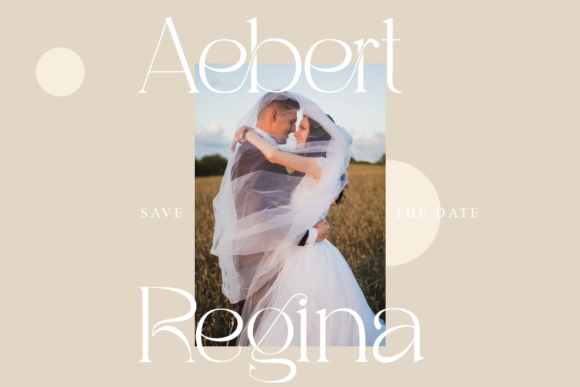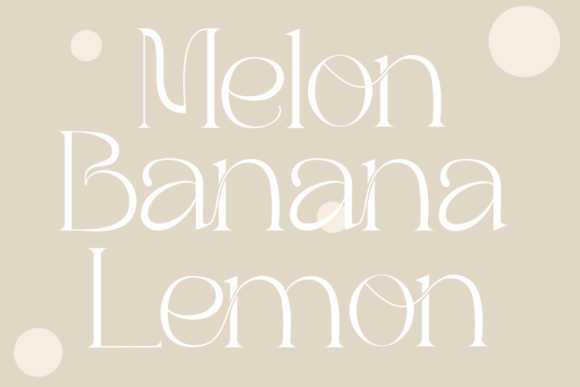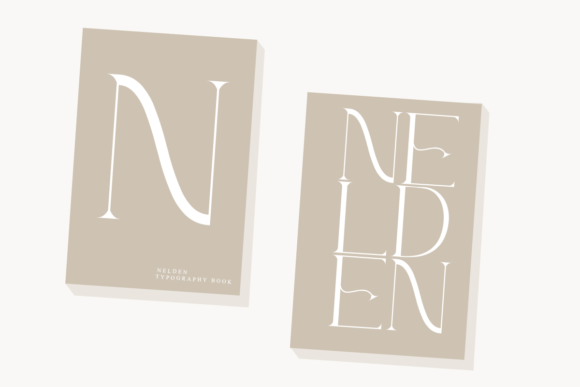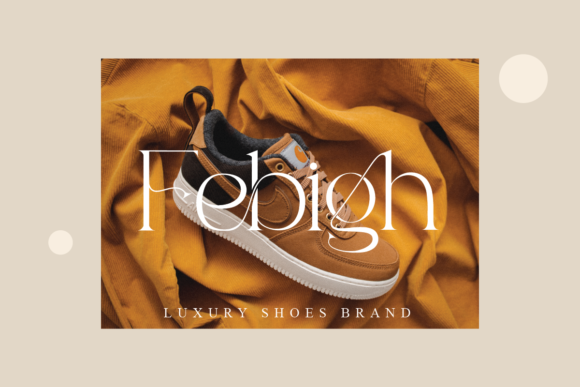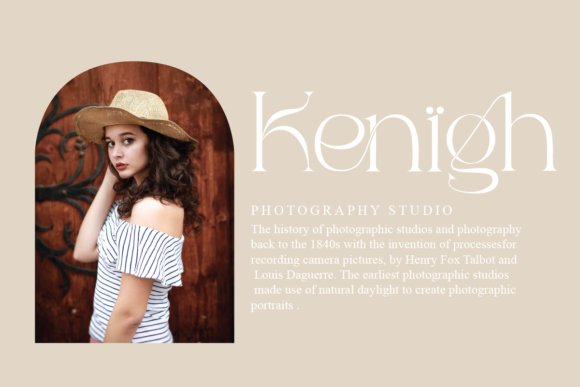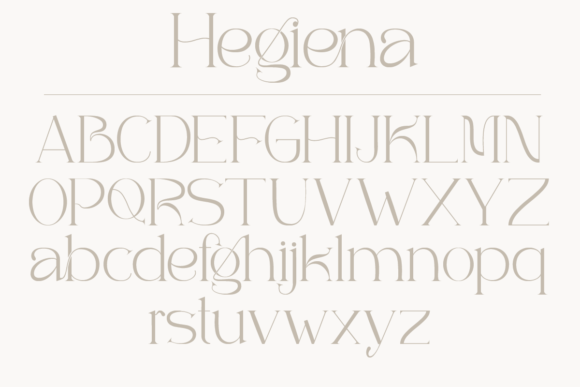
Hegiena Font: Elevate Your Designs with Elegance and Sophistication
In the world of typography, fonts play a crucial role in conveying the tone and personality of a design. For designers and crafters seeking to add a touch of elegance and sophistication to their creations, Hegiena Font is an exceptional choice. This stunning serif font boasts a thin, lettered design that exudes refinement and poise, making it perfect for a wide range of applications.
What Makes Hegiena Font Stand Out?
Hegiena Font is a beautifully crafted serif font that is sure to captivate your audience with its delicate and refined appearance. Its thin lettering gives it a light and airy feel, while the elegant serifs add a touch of sophistication and luxury. Whether you’re working on a branding project, packaging design, or digital content, Hegiena Font is sure to elevate your designs to new heights.
One of the standout features of Hegiena Font is its PUA (Private Use Area) encoding. This means that you can access all of the glyphs and swashes with ease, giving you greater flexibility and creative control over your designs. With PUA encoding, you can effortlessly insert special characters, ligatures, and other unique elements that will take your designs to the next level.
Hegiena Font offers a world of creative possibilities for designers and crafters. Its elegant design makes it perfect for:
- Branding and logo design: Create stunning logos and brand identities that exude sophistication and refinement.
- Packaging design: Add a touch of luxury to your packaging designs and make your products stand out on store shelves.
- Digital content: Elevate your digital content, including social media graphics, blog posts, and website headers, with the elegant and refined design of Hegiena Font.
- Stationery and invitations: Create beautiful stationery, invitations, and greeting cards that showcase your attention to detail and commitment to quality.
Why Choose Hegiena Font?
With so many fonts available, why choose Hegiena Font? Here are just a few reasons why designers and crafters are falling in love with this stunning serif font:
- Unique and elegant design: Hegiena Font boasts a distinctive and refined design that will set your creations apart from the crowd.
- PUA encoding: Enjoy easy access to all glyphs and swashes, giving you greater creative control over your designs.
- High-quality craftsmanship: Hegiena Font is crafted with attention to detail and a commitment to quality, ensuring that your designs look professional and polished.
- Versatility: Use Hegiena Font in a wide range of applications, from branding and packaging to digital content and stationery.
Tips for Using Hegiena Font
To get the most out of Hegiena Font, here are a few tips to keep in mind:
- Pair with bold fonts: Combine Hegiena Font with bold fonts for a striking contrast that adds visual interest to your designs.
- Experiment with colors: Try Hegiena Font in different colors to find the perfect shade that complements your brand or design.
- Play with swashes: Take advantage of Hegiena Font’s PUA encoding to add beautiful swashes and glyphs to your designs.
Hegiena Font is a stunning serif font that offers designers and crafters a unique and elegant solution for their typography needs. With its thin lettered design, PUA encoding, and high-quality craftsmanship, Hegiena Font is the perfect choice for anyone seeking to add a touch of sophistication and refinement to their creations. Whether you’re working on a branding project, packaging design, or digital content, Hegiena Font is sure to elevate your designs to new heights.